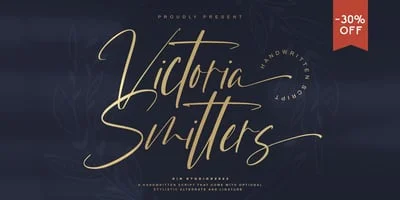
Victoria Smitters Font
Victoria Smitters Font is ideal for Victorian-themed weddings, vintage portrait studios, antique tea room branding, historical mansion tours, period drama productions, classic literature book covers, vintage jewelry packaging, heritage fashion boutiques, ornate invitation designs, and any refined project that celebrates the elaborate elegance and sophisticated charm of Victorian-era aesthetics and aristocratic traditions.
What makes Victoria Smitters Font exciting is its aristocratic elegance that captures the ornate sophistication of Victorian high society and the meticulous attention to detail that defined the golden age of decorative arts. This typeface embodies the essence of Victorian refinement with elaborate letterforms that suggest hand-engraved calling cards, ornate book bindings, and the exquisite craftsmanship of a bygone era when beauty was measured by intricate detail. The font's regal character makes it perfect for brands and projects that want to communicate luxury, tradition, and the timeless appeal of Victorian elegance.
The Victoria Smitters Font family includes multiple weights and ornamental variations, featuring light, regular, and bold versions along with decorative flourishes and alternate characters inspired by Victorian calligraphy and period ornamentation. This comprehensive collection allows designers to create authentically Victorian typography that maintains the font's signature elaborate character while providing flexibility for various luxury and heritage design applications.
When exploring authentic Victorian typography, Victoria Smitters Font represents an exceptional opportunity to work with a typeface that genuinely captures the spirit of Victorian aristocracy and period elegance. This font demonstrates superior craftsmanship by incorporating the ornate detail and sophisticated flourishes that defined Victorian design philosophy and the era's commitment to decorative excellence in all artistic endeavors.
Professional designers appreciate Victoria Smitters Font for its ability to instantly establish luxury credibility and historical authenticity across various upscale and heritage platforms. The font's elaborate character makes it particularly effective for luxury hospitality, heritage brands, and high-end event planning seeking to communicate sophistication and the refined elegance that distinguished Victorian high society.
The timeless appeal of Victoria Smitters Font lies in its perfect representation of Victorian luxury and aristocratic sophistication that continues to inspire contemporary luxury design and formal occasions. This typeface serves as a bridge between historical elegance and modern appreciation for craftsmanship, detail, and the refined beauty of elaborate artistic expression.
For creative professionals working with luxury heritage and Victorian-inspired brands, Victoria Smitters Font represents the ultimate typography solution that brings authentic Victorian elegance and aristocratic sophistication to any application, ensuring designs reflect the ornate beauty and refined craftsmanship that defined the most elegant aspects of Victorian artistic tradition.